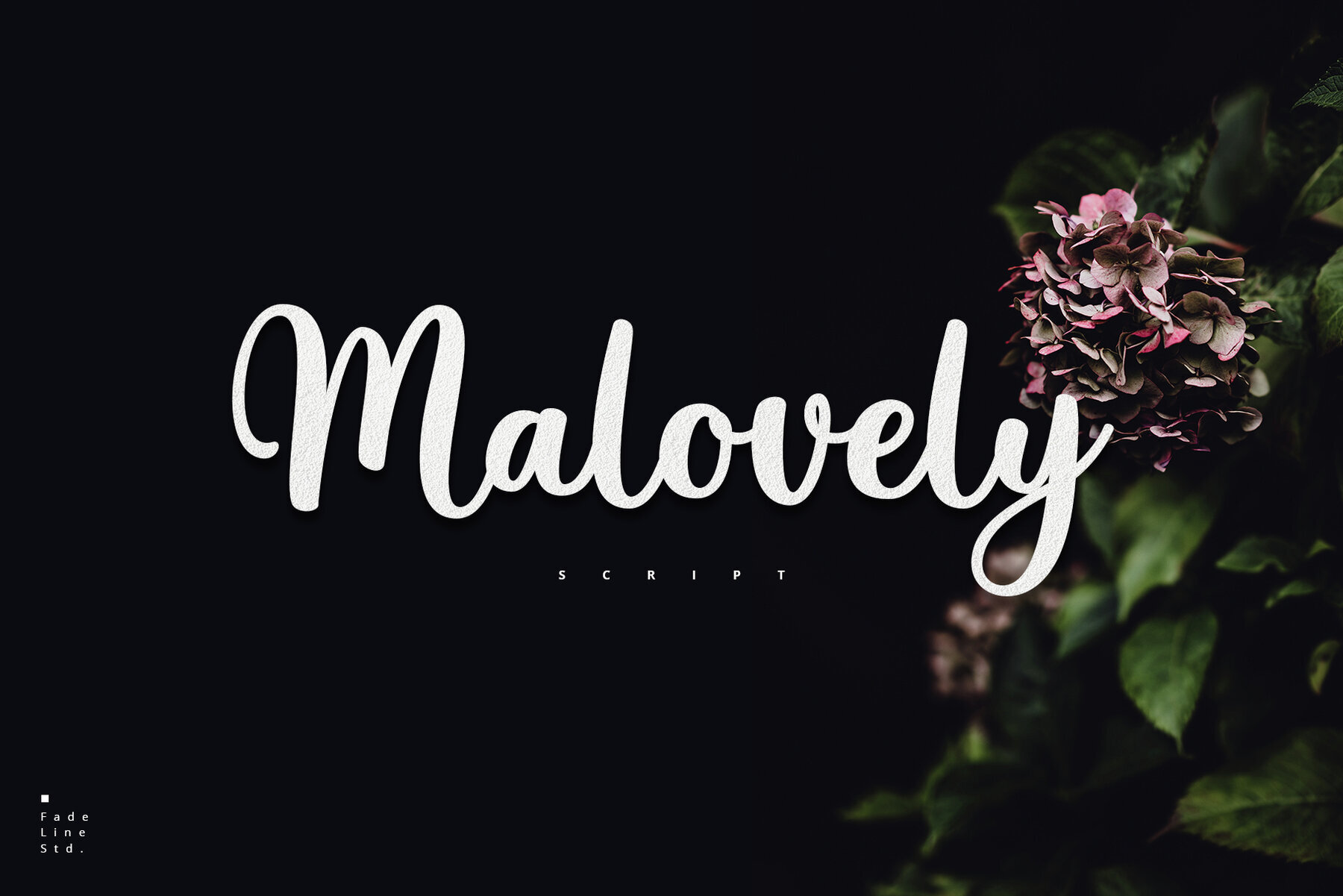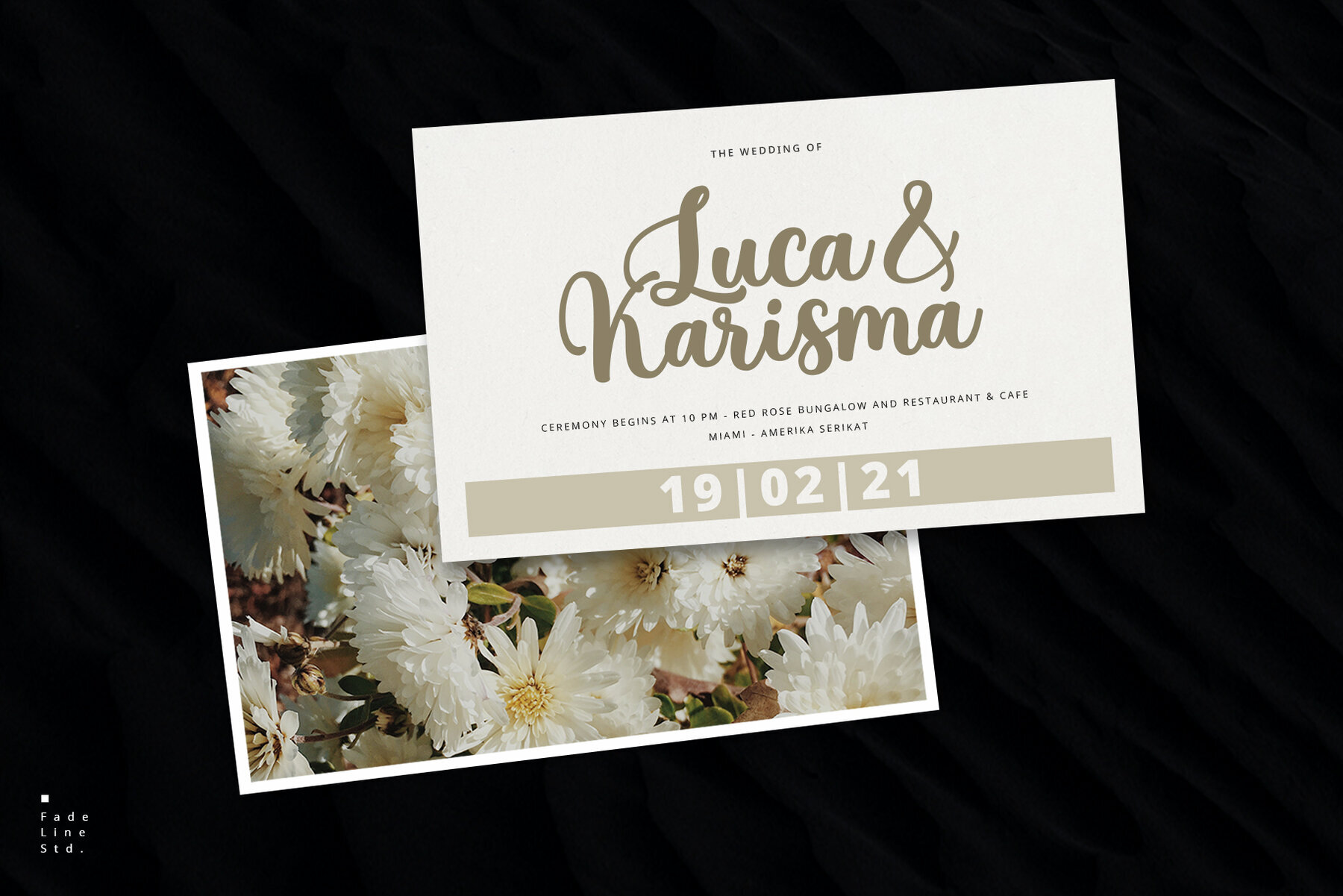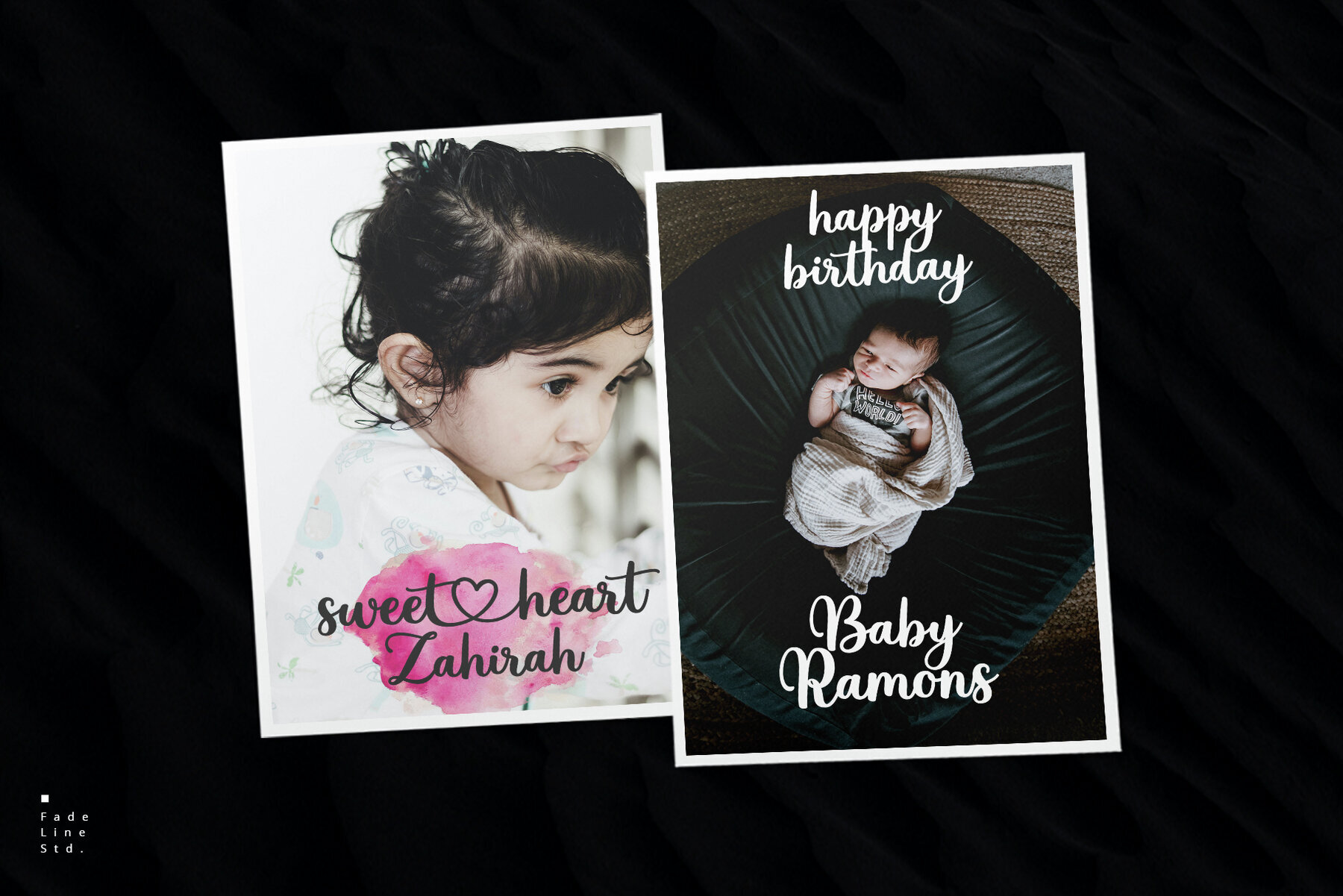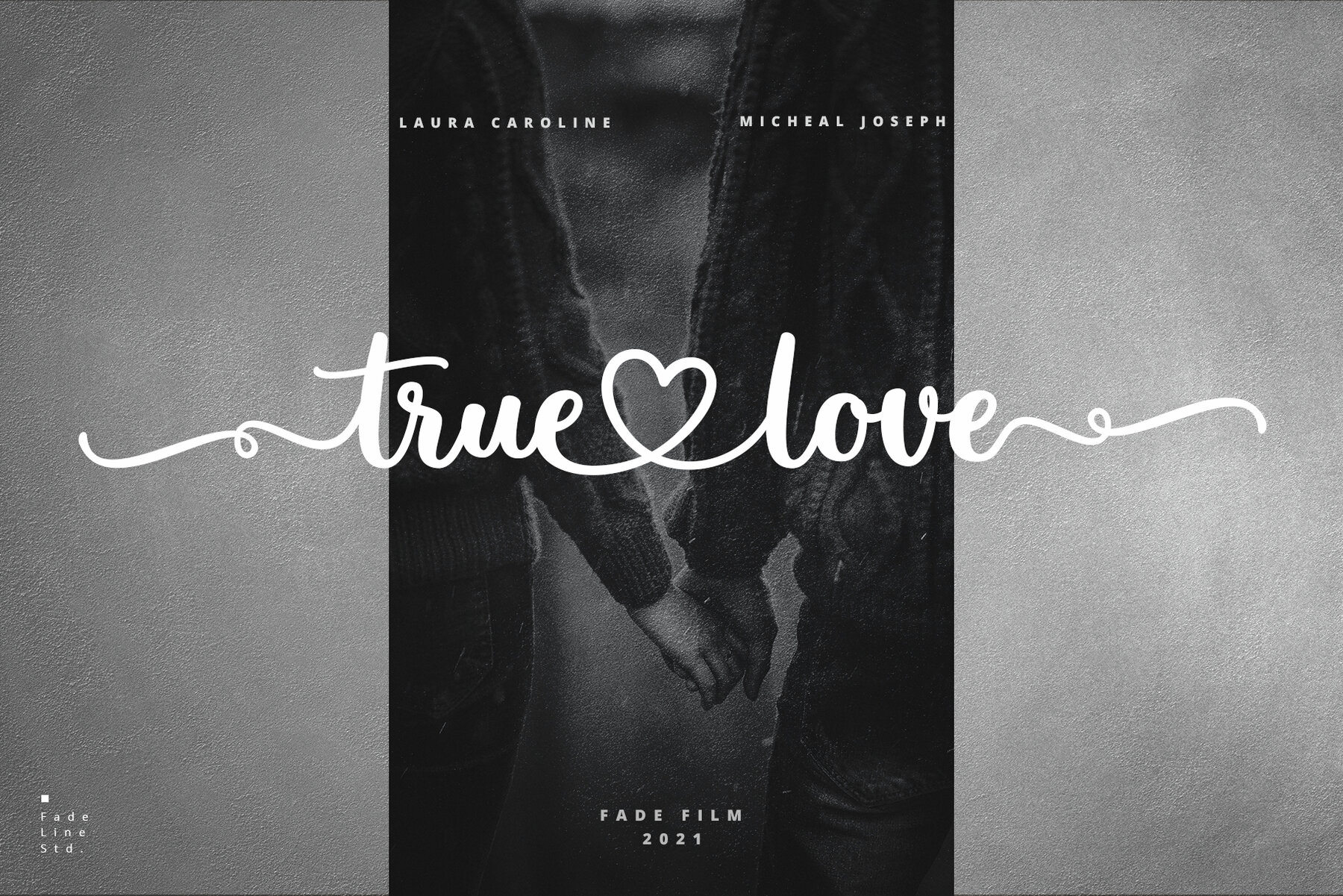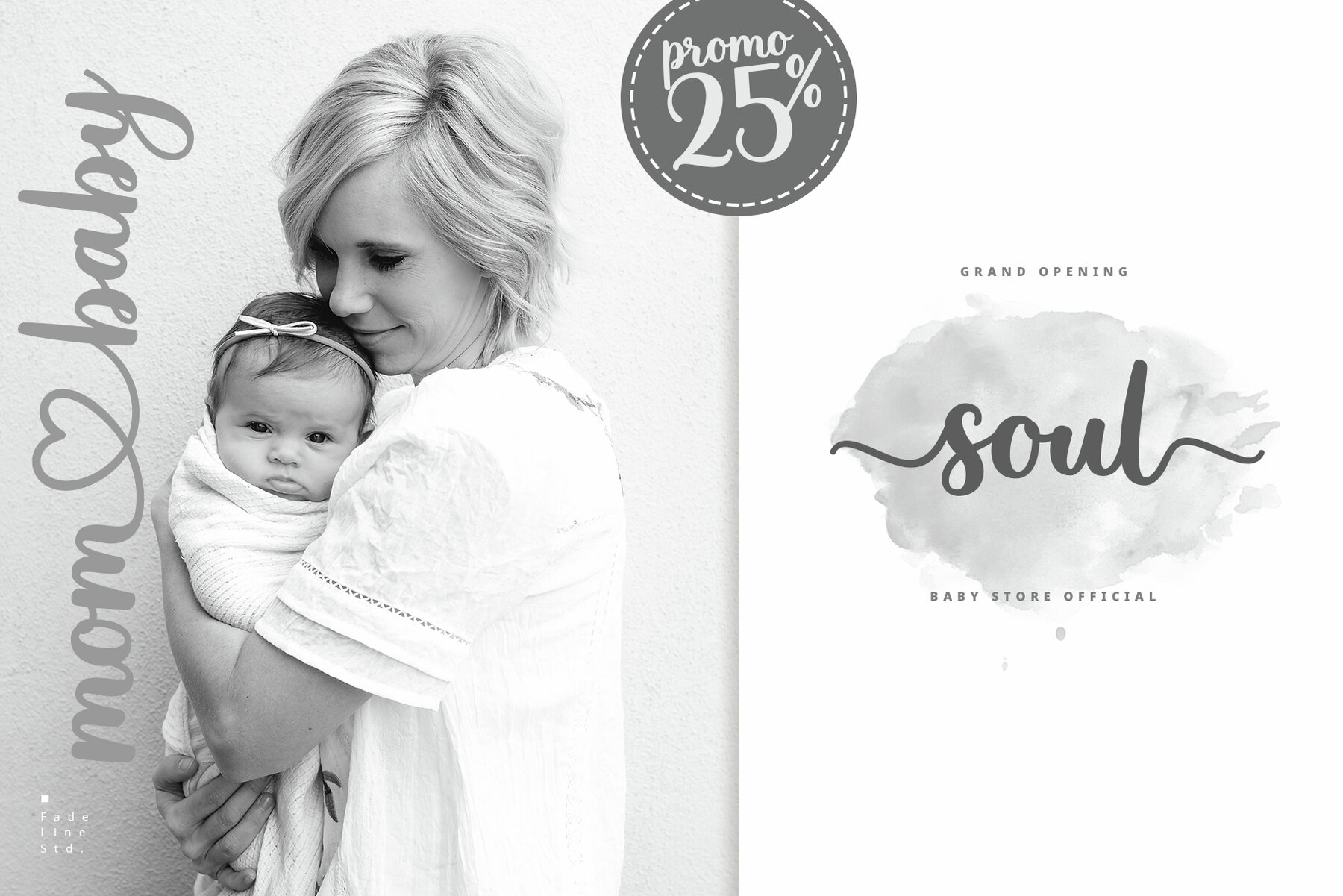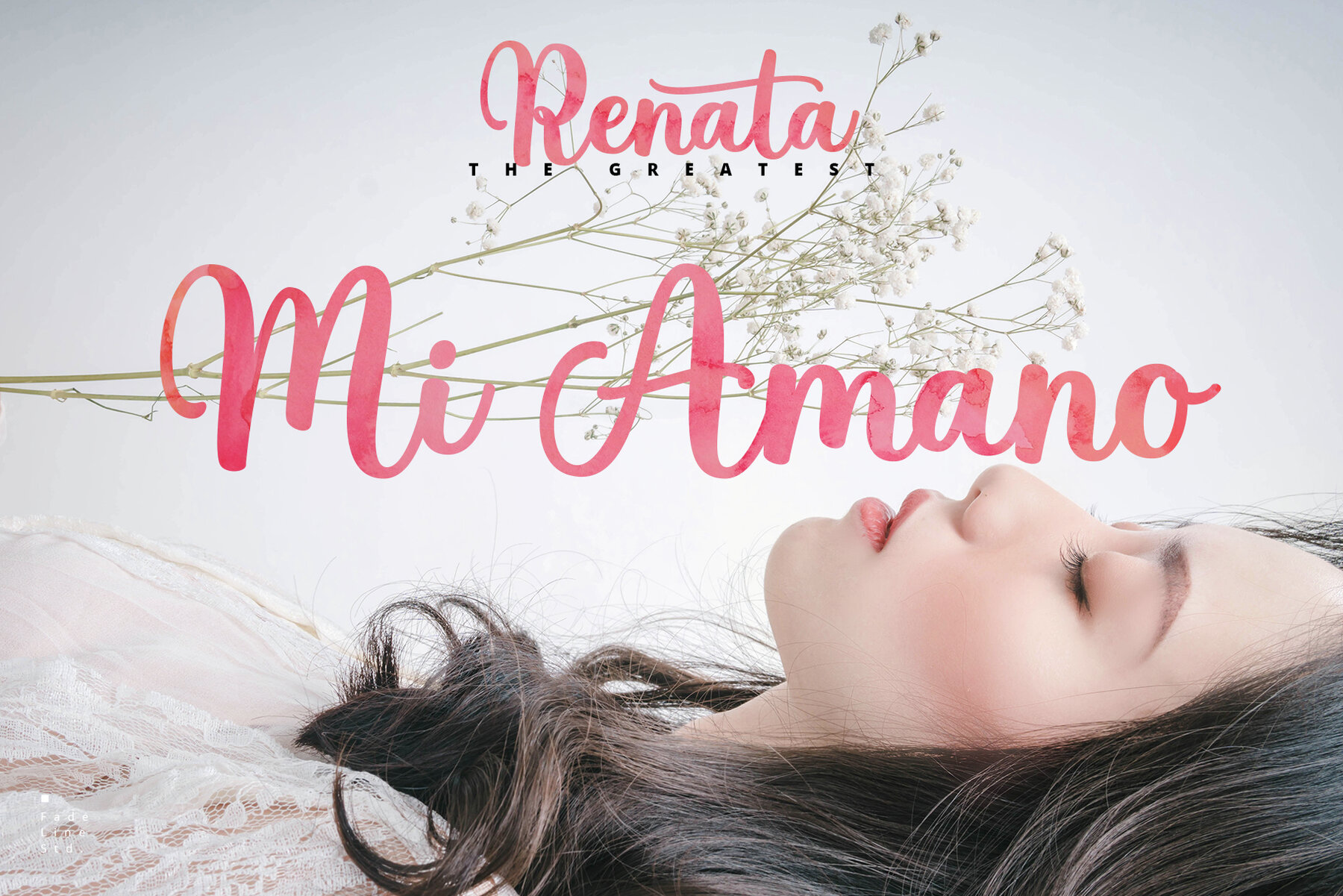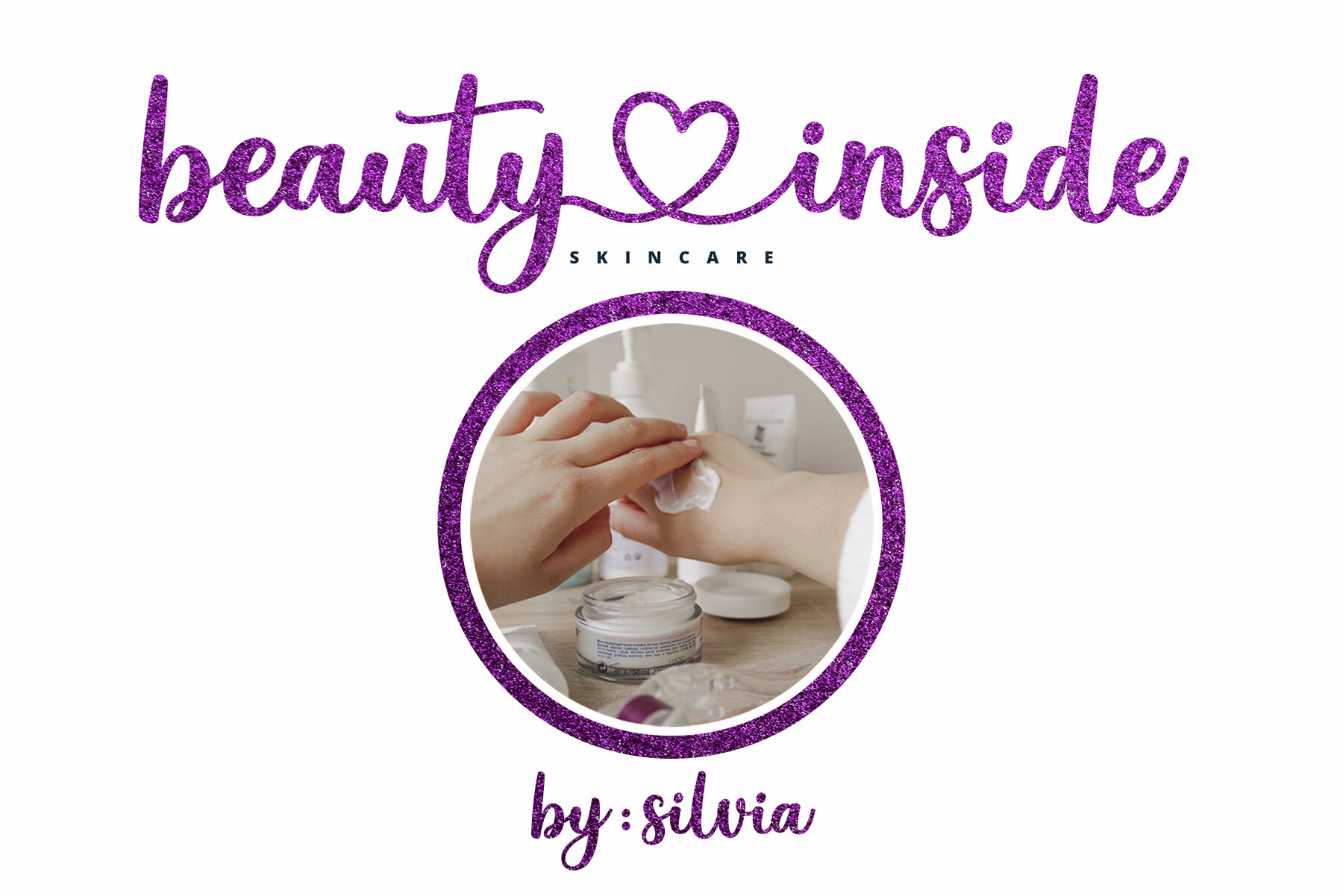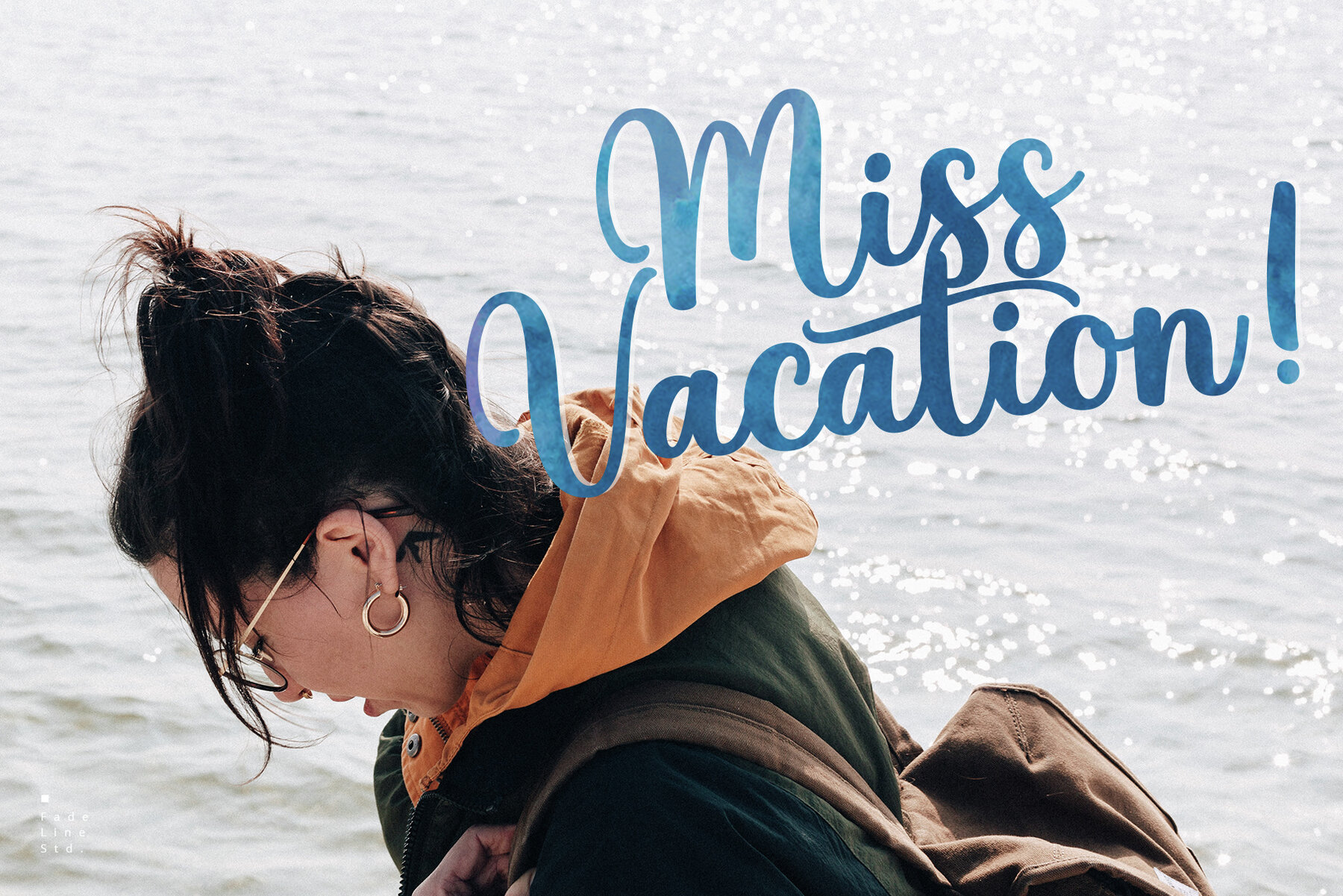
Malovely Script Font
Malovely Script
Introducing the Malovely Script, a charming font designed to add a playful touch to your creations. Crafted with love, this script font is perfect for injecting fun and warmth into any project. Ideal for logos, branding projects, and homeware designs, Malovely Script transforms everyday items into delightful pieces.Malovely Script Font
Versatile Uses